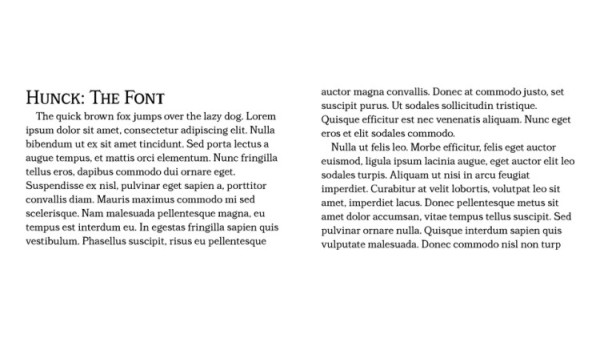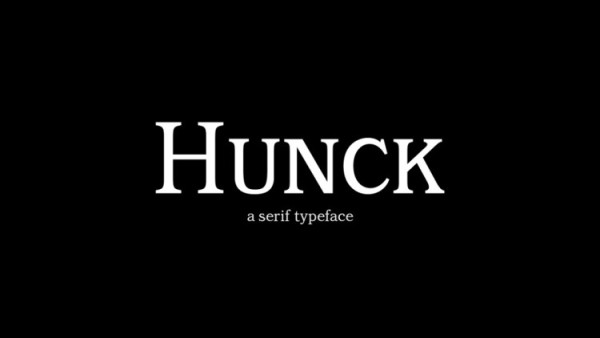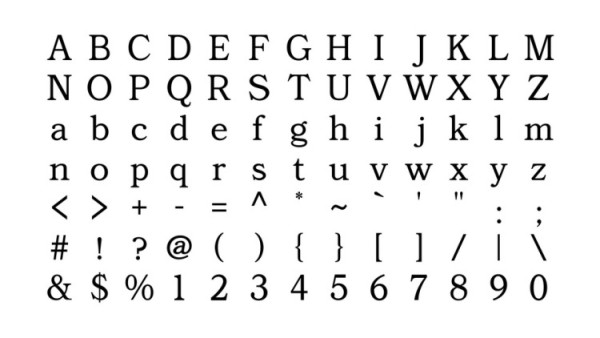
Hunck Font is a versatile serif typeface designed with great attention for legibility and aesthetics. The font is perfect to a wide variety of text and display uses, including advertising, publishing, signage and packaging.